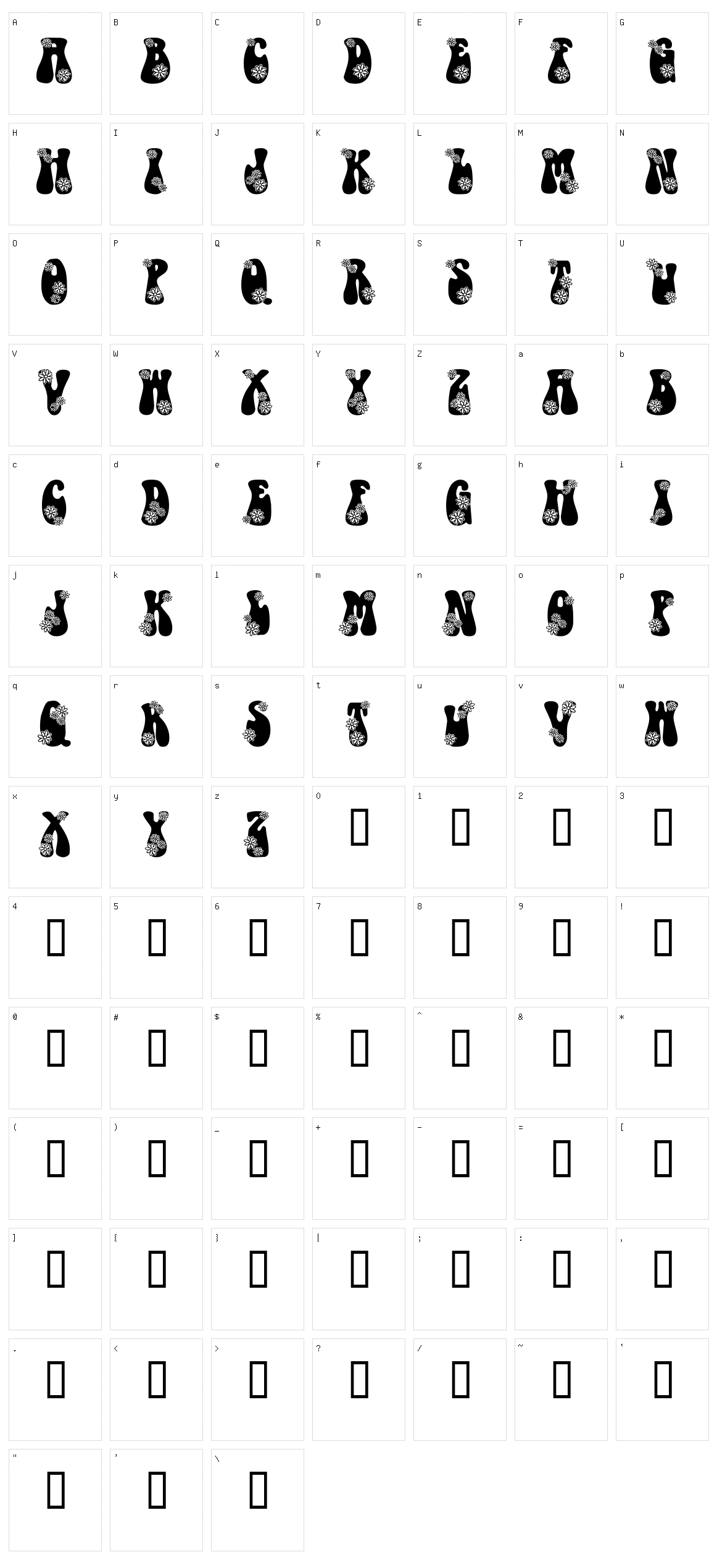
The free font LMS Hippy Chick is carefully designed by London Letters, showcasing a thoughtful balance of creativity and usability and falls under the Groovy font style. When you download the ZIP file, it contains only 46.39 KB of font files, making it lightweight and quick to download. Please review the license details below to understand permitted usage and distribution rights. If license information is not available, we recommend using this font for personal projects only or contacting the author directly for commercial usage permissions.
by London Stokes
This font is upper and lowercase letters.